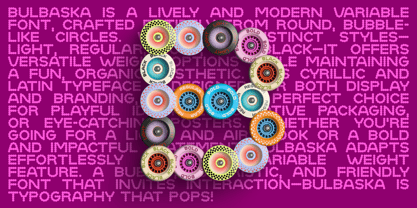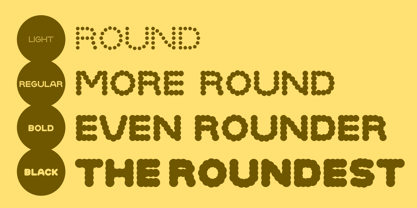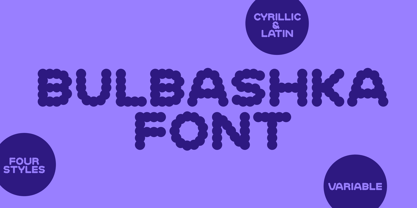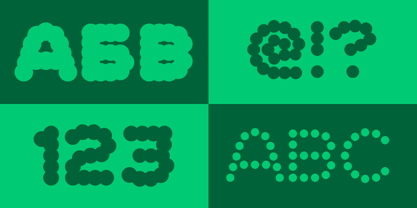
Bulbashka
by Typetika
The Bulbashka Font Family was designed by Valentyn Tkachenko and published by Typetika. Bulbashka contains 5 styles and family package options. More about this family
Bulbashka – A Bubble-Based Display Full of Character
Bulbashka is a decorative, all-caps display typeface built entirely from perfectly round bubbles. Designed for attention-grabbing headlines, logos, or packaging, this font delivers a playful, joyful tone with a uniquely tactile texture.
The family includes four weights, each defined by the size and density of its circles — from airy, clearly separated bubbles in the Light style to Black, where the bubbles merge into solid, chunky letterforms. This progression gives designers full control over how “bubbly” or solid the appearance feels. A variable font version allows for seamless transitions along this axis, opening up even more expressive possibilities.
While Bulbashka is cheerful and friendly at its core, the Light style also carries the charm of vintage perforated lettering, reminiscent of old passport stamps or industrial label makers — making it suitable for both nostalgic and modern creative contexts.
If you’re looking for a typeface that pops with personality, Bulbashka is the perfect choice to add a touch of fun, texture, and surprise to your visual storytelling.